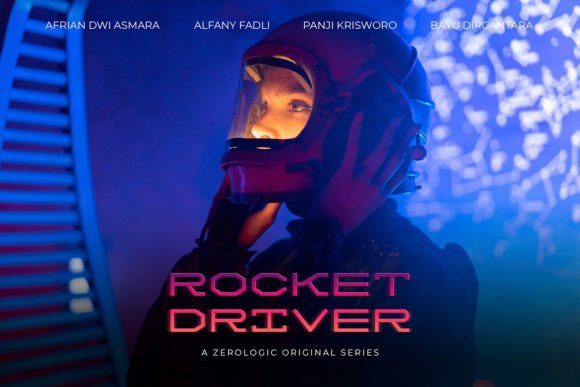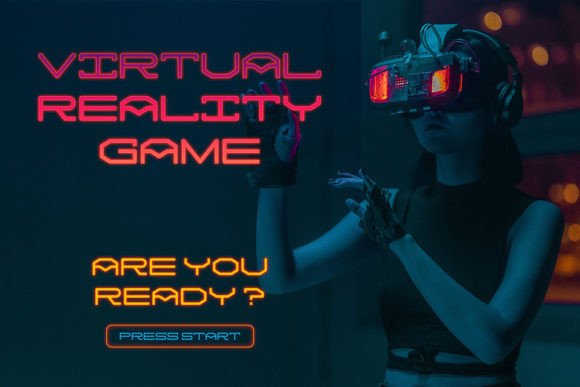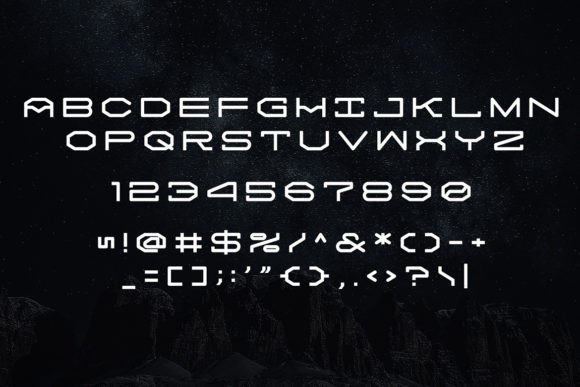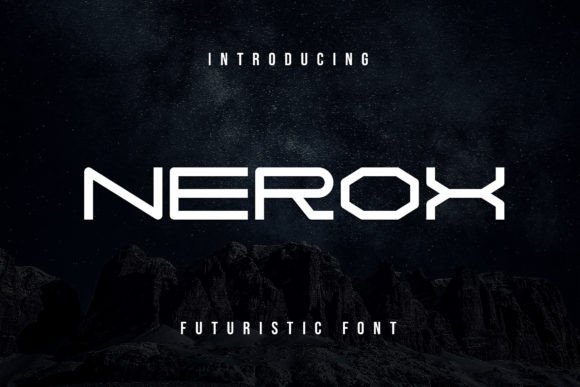
Introduction to Nerox Font
Nerox is a cool and modern display font.
Key Features of Nerox Font
Why Choose Nerox Font?
Nerox Font offers exceptional quality and versatility, making it a valuable addition to your design toolkit. Whether you’re creating for personal projects or commercial use, Nerox Font delivers professional results.